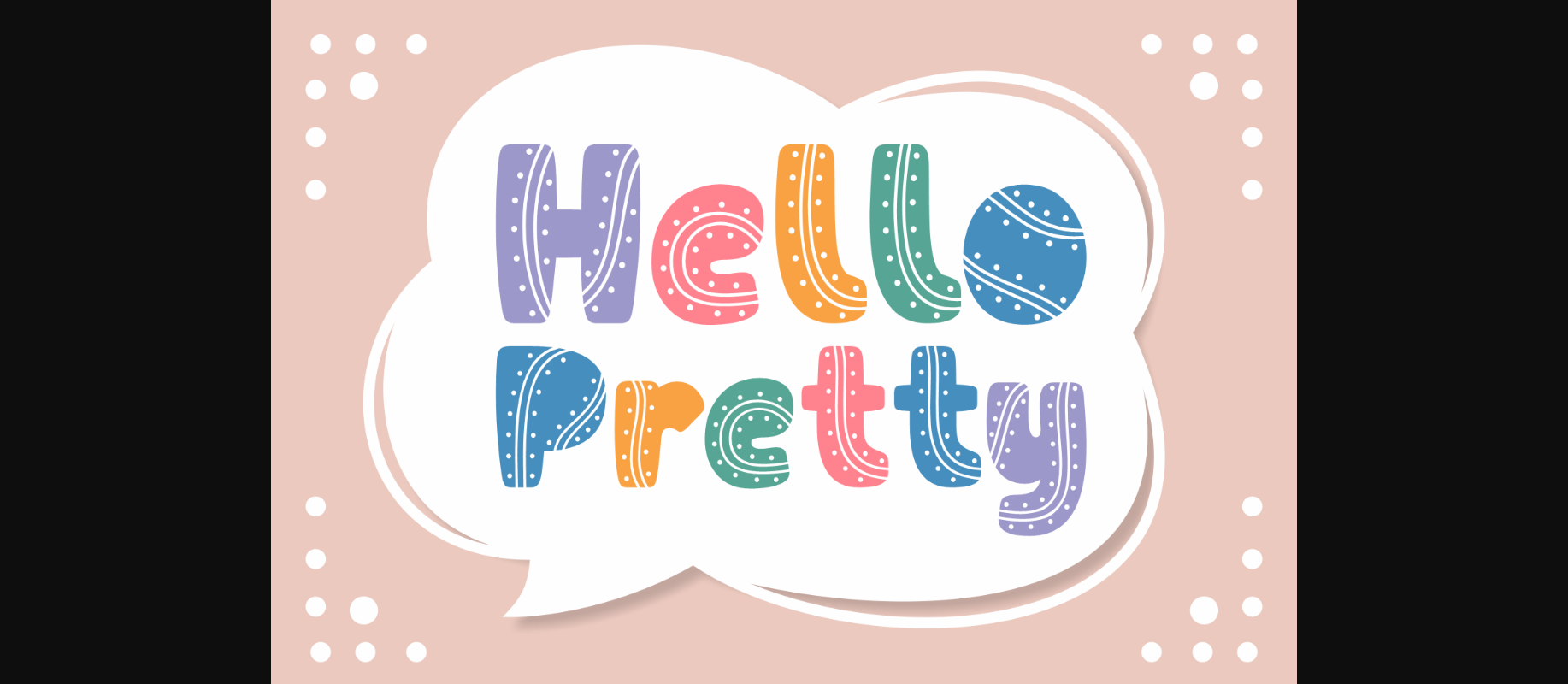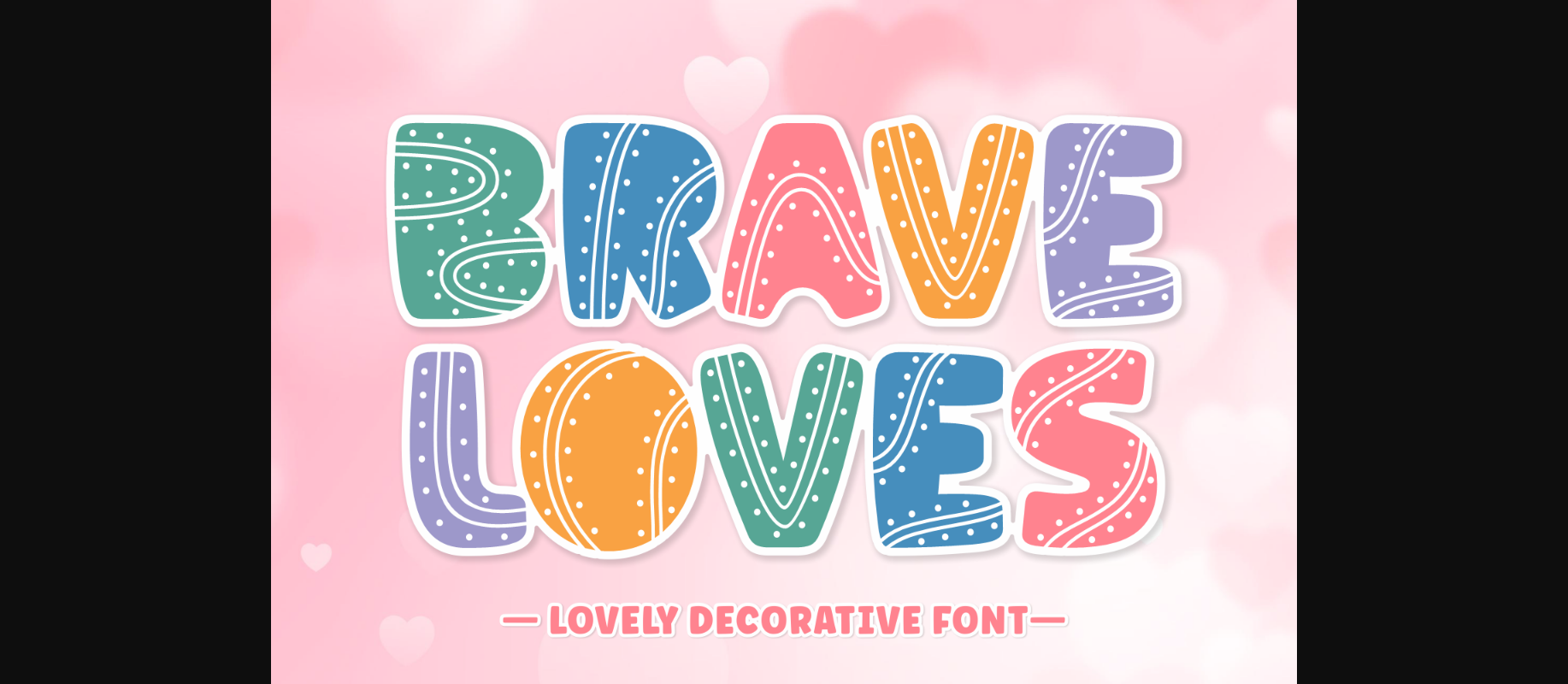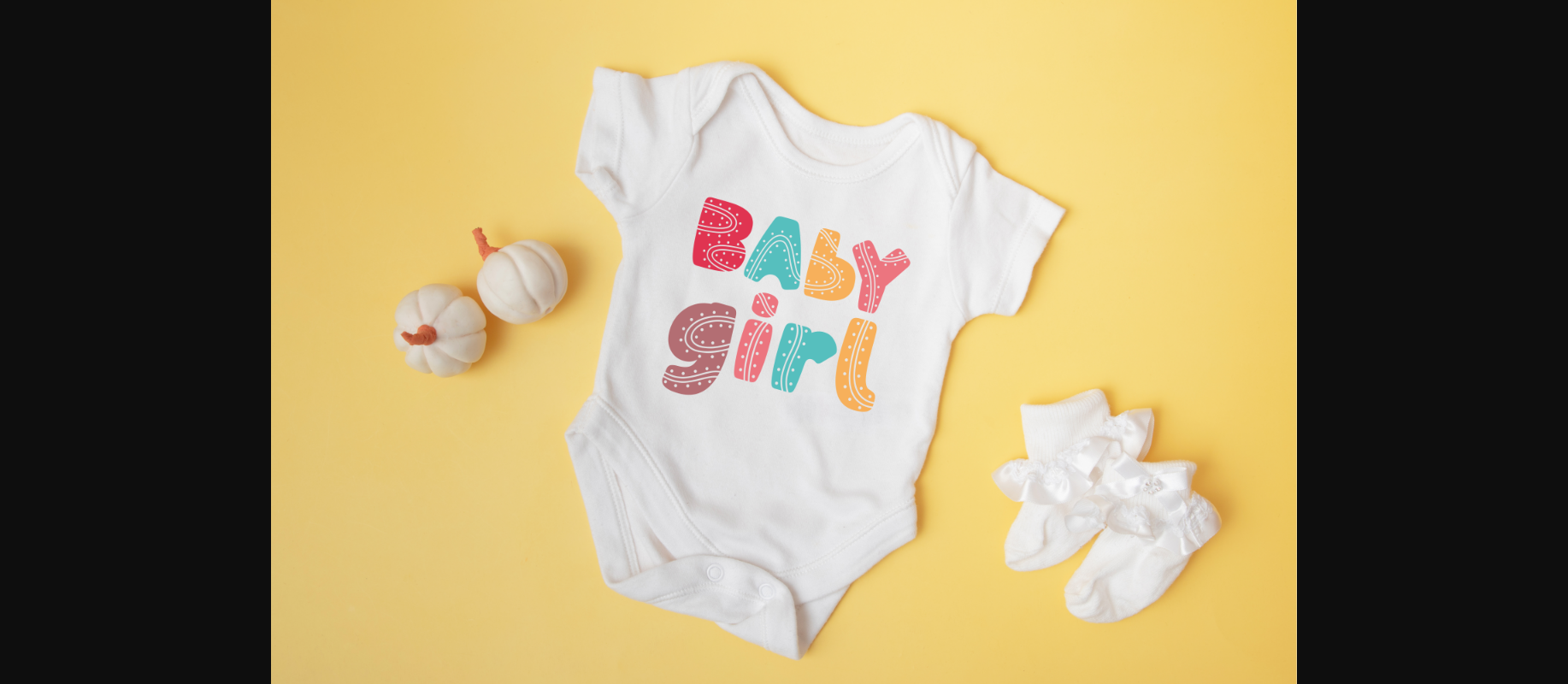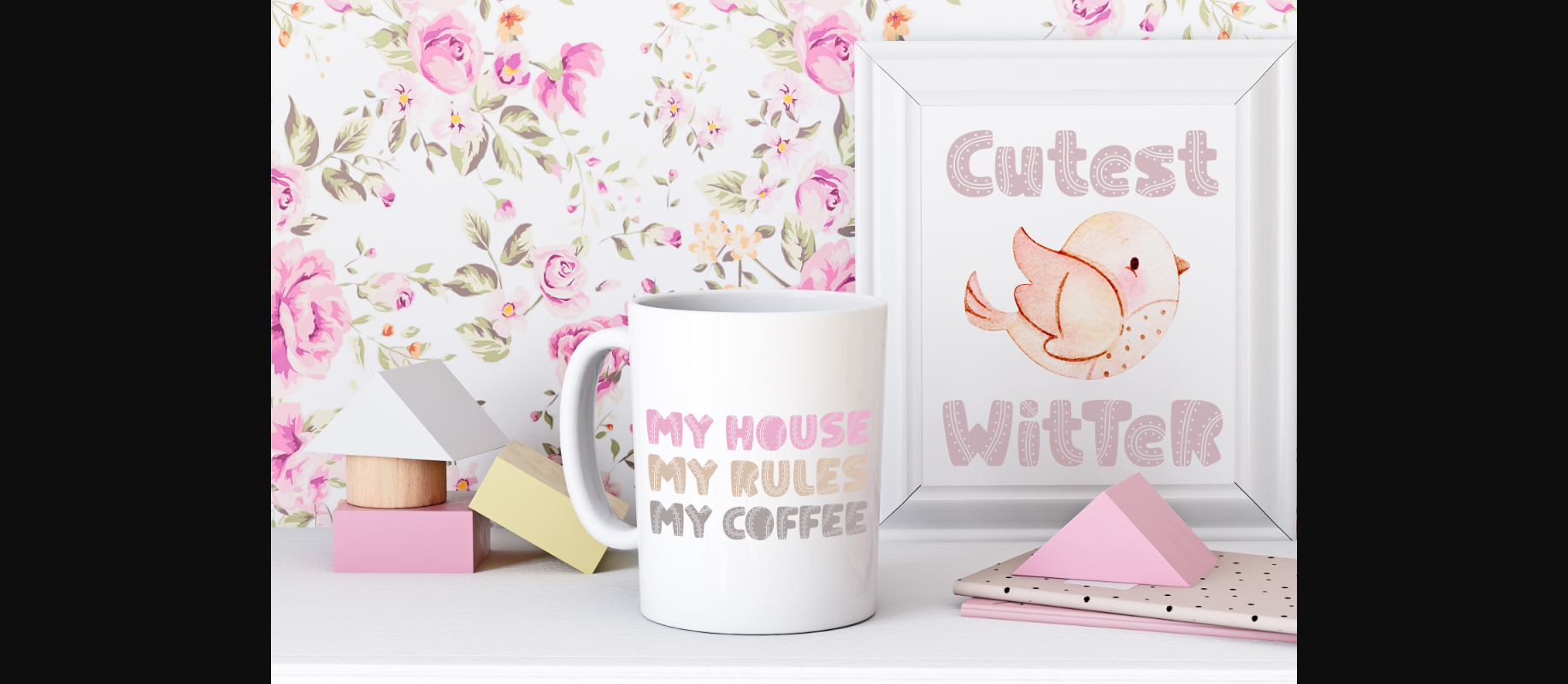
HomeDecorative FontsBrave Loves Font Decorative Fonts Brave Loves Font FacebookXPinterestWhatsApp 1 of 7 ... Brave Loves Font Poster 2... Brave Loves Font Poster 3... Brave Loves Font Poster 4... Brave Loves Font Poster 5... Brave Loves Font Poster 6... Brave Loves Font Poster 7... About Brave Loves Font Brave Loves is a cool, unique, and attractive decorative font. It embodies fun and authenticity is the perfect choice for kids’ activities or school projects and clothing designs. DOWNLOAD NOW People also explored Smile Monogram Font Just Maria Font Realistic Mock-ups on Vintage Background Hidea Font Christmas Vintage Font Bonica Font Union Weathertop Font Willow Font 325 0 TagsBrave Loves Font Previous articleMelody Tone FontNext articleCrayo Sketch Font LEAVE A REPLY Cancel reply Comment: Please enter your comment! Name:* Please enter your name here Email:* You have entered an incorrect email address! Please enter your email address here Website: Save my name, email, and website in this browser for the next time I comment. Personal Use Free Nulshock Bold Personal Use Free Read more about this font Rise of Kingdom Personal Use Free Read more about this font Beat My Guest Personal Use Free Read more about this font Drip October Font Personal Use Free Read more about this font BLOG Fonts That Capture the Spirit of New York City New York City is more than just a place—it’s an experience, a rhythm, a visual language... Elegant Wedding Invitation Fonts – Handwritten & Script Fonts 5 Fonts That Will Dominate Design Trends in 2026 Modern Sans-Serif Fonts That Brands Love in 2025